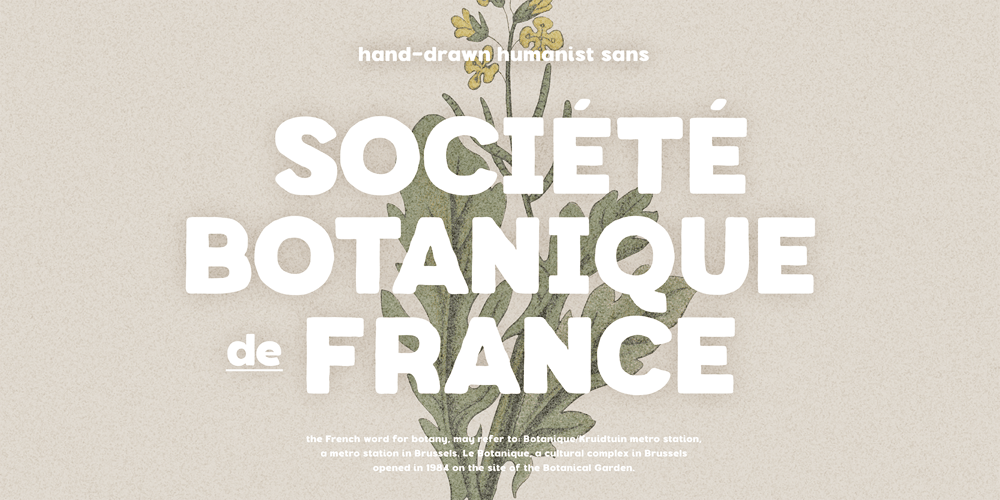
HV Societe Botanique
HV Societe Botanique font
HV Societe Botanique Font Family was designed by Max Duy T. and published by Harmonais Visual. HV Societe Botanique contains 3 styles and family package options. Botanique – a hand-drawn humanist sans with rough, cute, organic features. This font is specially designed for organic, humanist, elegant projects. Botanique is perfectly suitable for creating a clean design with a touch of rough and rustic. You can use it for logos, packaging, and social media… The possibilities are endless with this font.